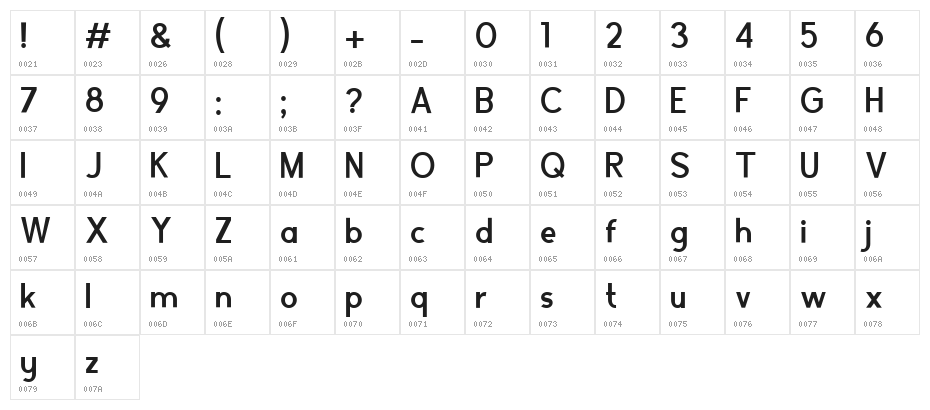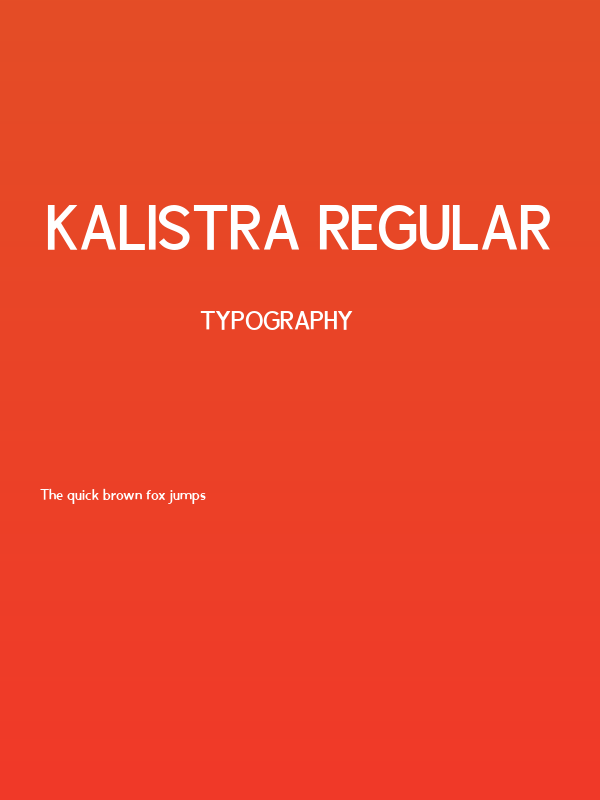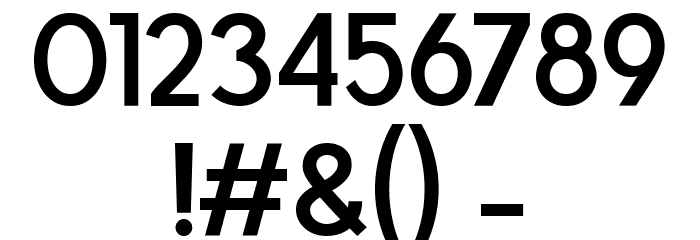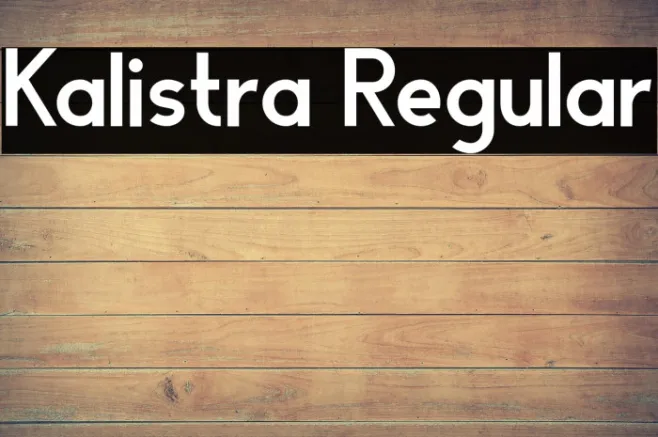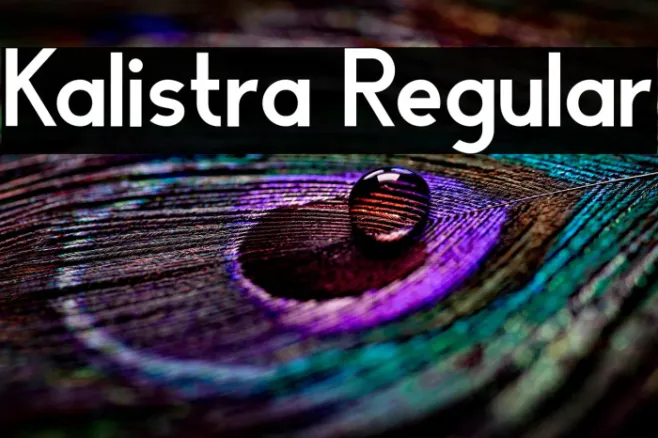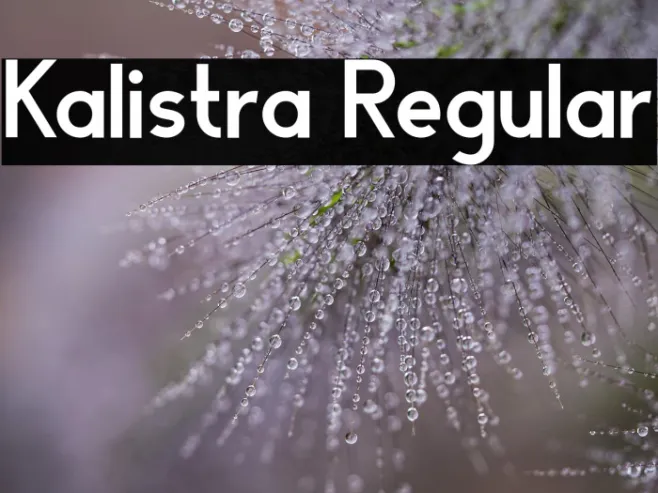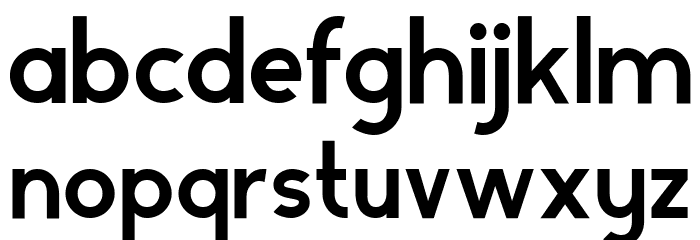
Kalistra Regular Font
Kalistra Regular Description
This font features a clean and modern sans-serif design with a geometric structure. The characters are well-balanced with uniform stroke widths, giving it a sleek and professional appearance. The uppercase letters are bold and assertive, while the lowercase letters maintain a consistent and harmonious flow. The numerals are clear and easy to read, making them suitable for various applications. The special characters are distinct and integrate seamlessly with the rest of the font, ensuring versatility in design projects.